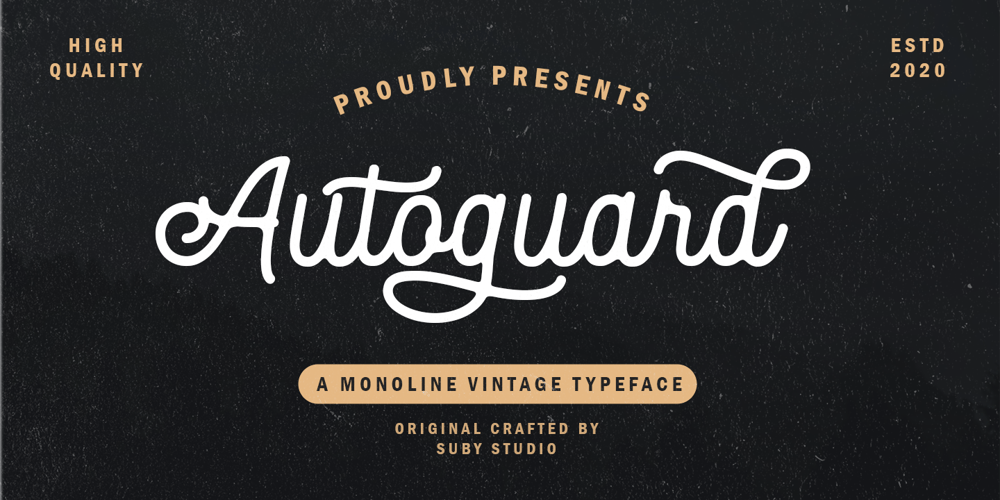
Autoguard Font Family was designed by Teguh Subiyantoro and published by Suby Studio. Autoguard contains 1 styles and family package options. Autoguard is a monoline font with vintage looks. It is perfect to create beautiful vintage typography for your projects like t-shirts, merchandising, logo labels, posters, magazines, packaging, quotation and more.